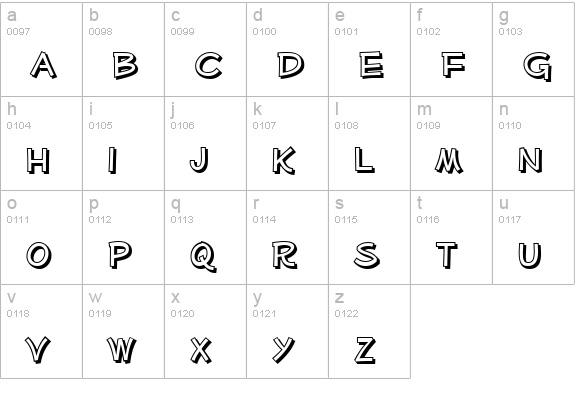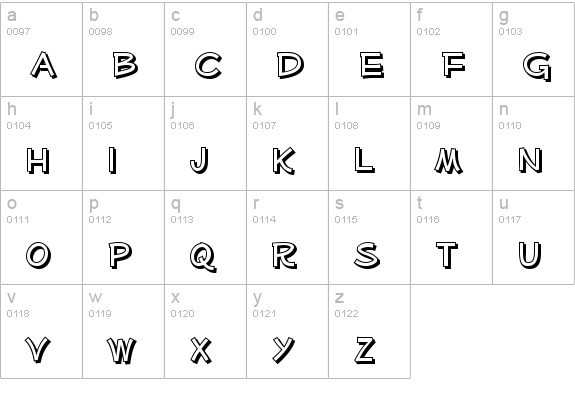
Mufferaw Shaded Font Details
Mufferaw Shaded font is a bold and eye-catching typeface with a modern twist. Its strong and rugged design gives off a sense of adventure and boldness, making it perfect for headlines, posters, and branding projects. The unique shading effect adds depth and dimension to the characters, making them stand out even more. This versatile font is free to download at FontsMarket.com, allowing you to easily incorporate it into your design projects without any cost. With its distinct style and availability in various weights, Mufferaw Shaded font is sure to make a statement and leave a lasting impression on your audience.